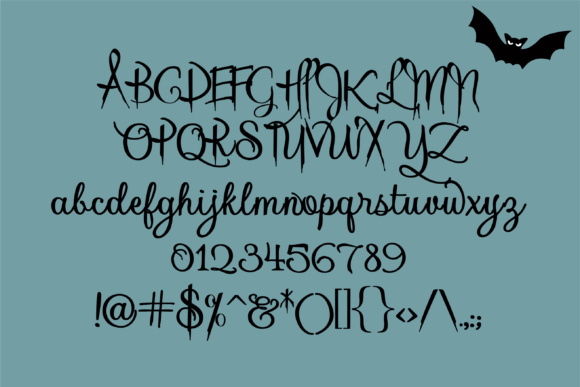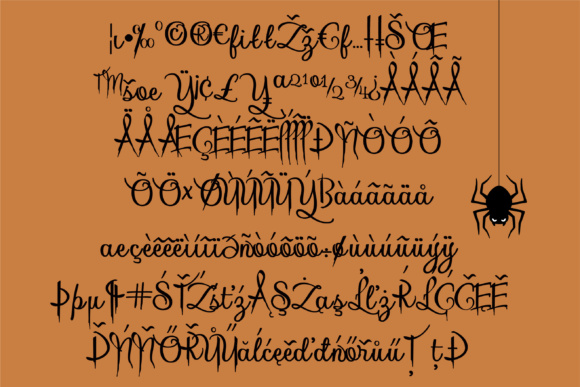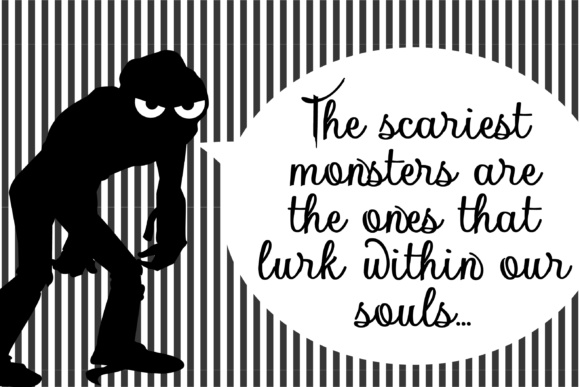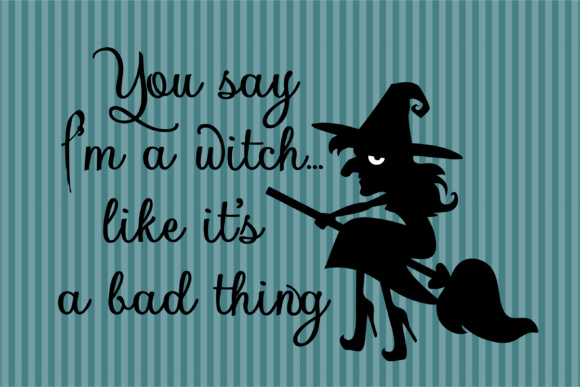
HomeScript FontsHalloween Elegance Font Script Fonts Halloween Elegance Font FacebookXPinterestWhatsApp Halloween Elegance Font Poster 2 Halloween Elegance Font Poster 3 Halloween Elegance Font Poster 4 Halloween Elegance Font Poster 5 About Halloween Elegance Font The Halloween Elegance is a beautiful cursive script that is elegant but has a slightly scary uppercase. DOWNLOAD ON CREATIVE FABRICAThis font is sold and delivered by Creative Fabrica. Font Canyon may earn a commission if you buy through this link. People also explored Wondertime Font Need Love Font My Husband Font Ribbon Candy Font Kahittna Font Enivela Font Lightover Font Marline Script Font Nike Ardila Font 366 0 TagsHalloween Elegance Font Previous articleHeart Monogram FontNext articleDoverfield Font LEAVE A REPLY Cancel reply Comment: Please enter your comment! Name:* Please enter your name here Email:* You have entered an incorrect email address! Please enter your email address here Website: Save my name, email, and website in this browser for the next time I comment. Personal Use Free Girls Personal Use Free Read more about this font Masha Song Personal Use Free Read more about this font Glosery Personal Use Free Read more about this font December Christmas Personal Use Free Read more about this font BLOG Transform Your Website: Elevate Your Typography with 7 Best Web Font Generators Are you ready to transform your website's typography from ordinary to extraordinary? Great! Today, we're diving into the world of web font generators, which... How to Install and Use Fonts on Windows, macOS, and Web Projects Best Fonts for T-Shirt Design – Top 2025 Picks Top 10 Handwritten Fonts That Elevate Your Designs